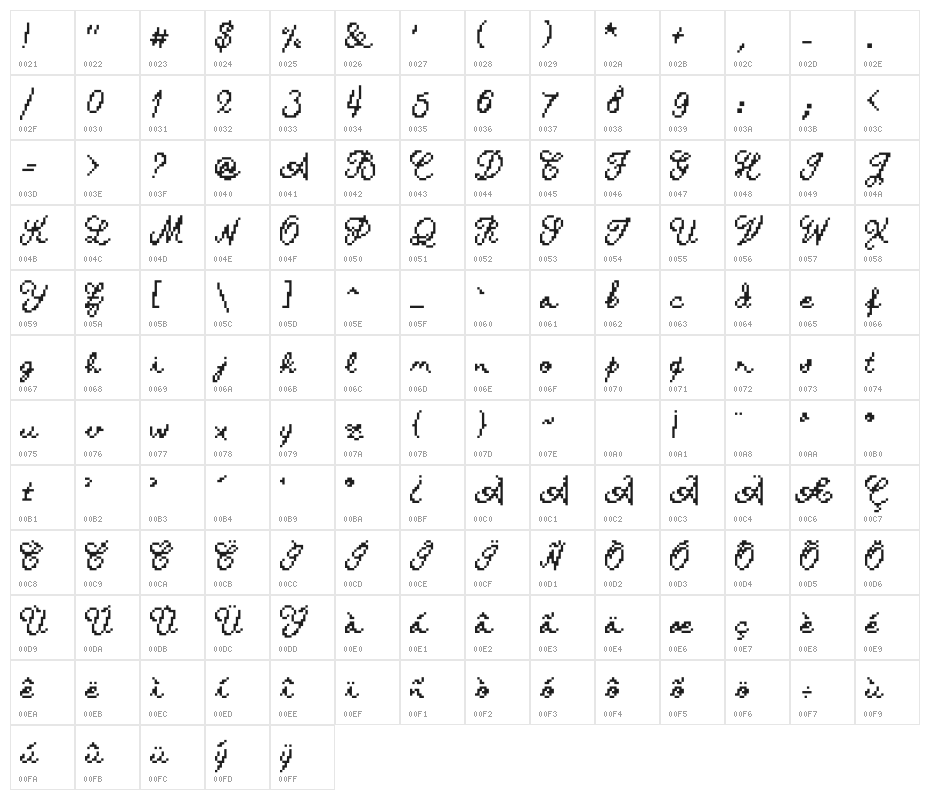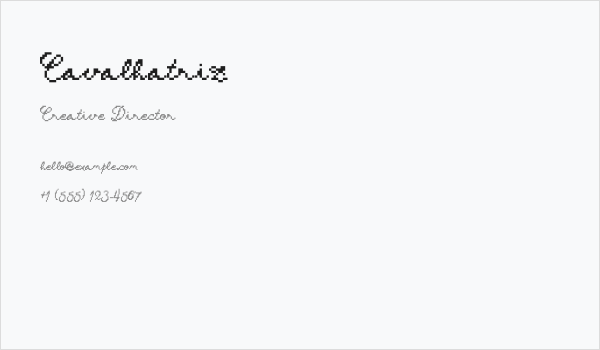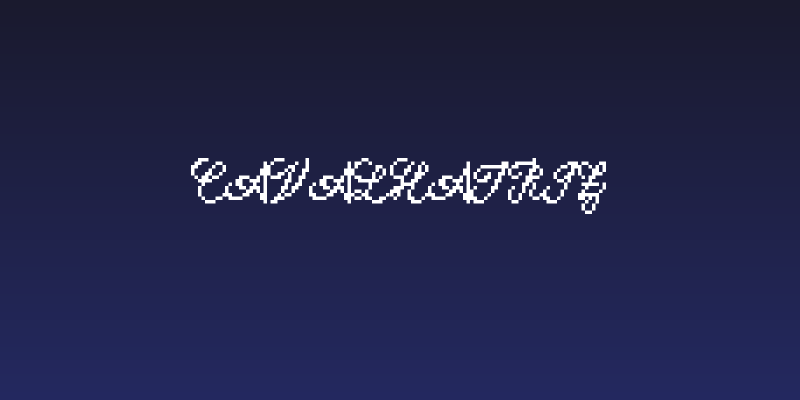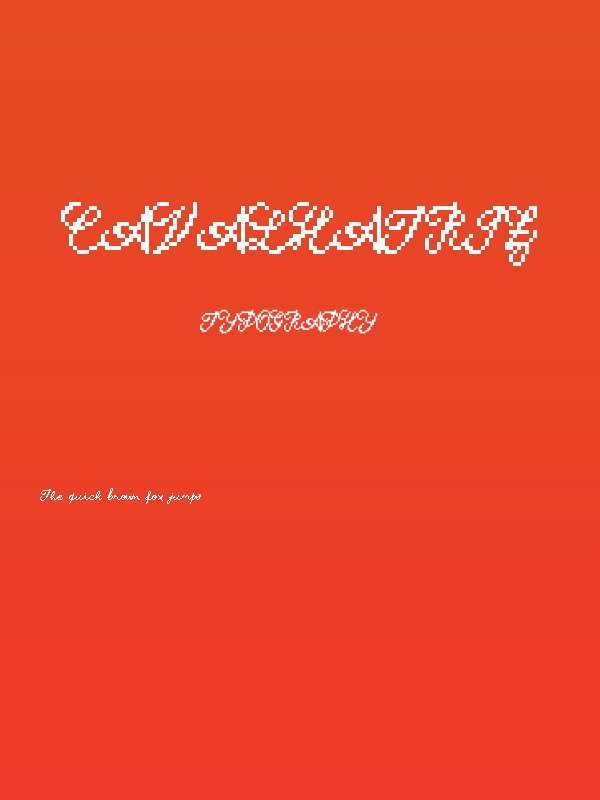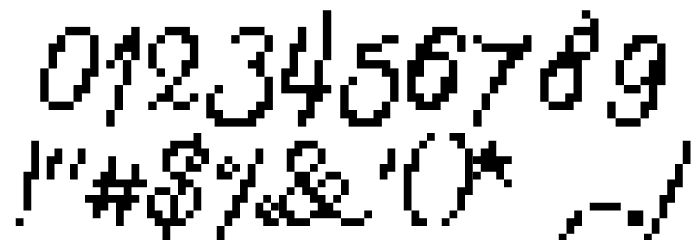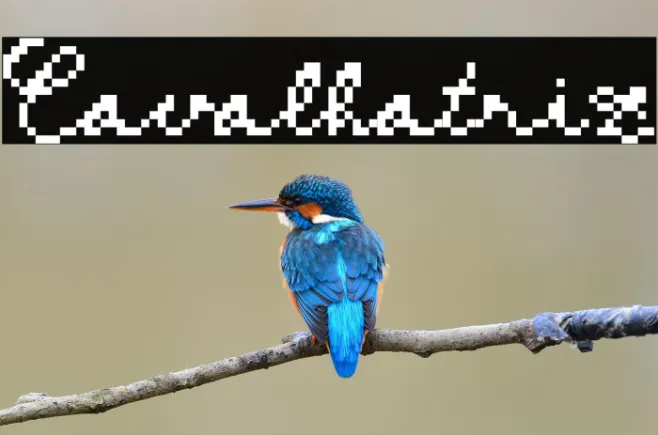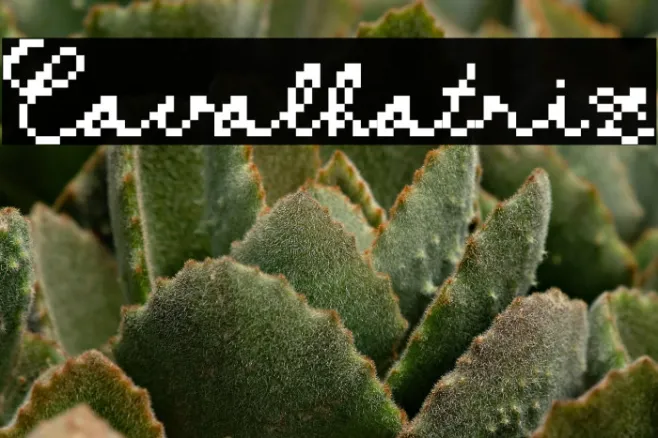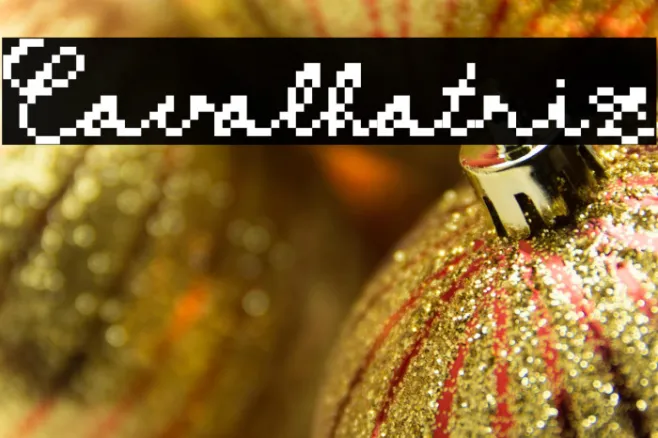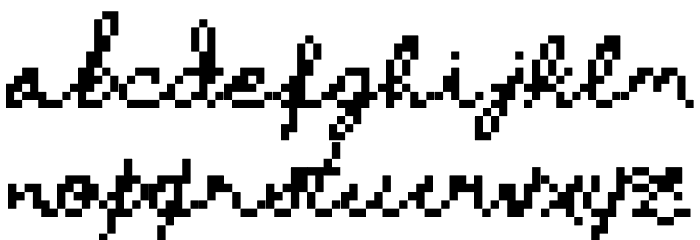
Cavalhatriz Font
Cavalhatriz Description
This font features a distinctive cursive style with a pixelated appearance, giving it a unique blend of digital and handwritten aesthetics. The uppercase letters are elegantly connected, while the lowercase letters maintain a consistent flow, enhancing readability. Numbers and special characters are crafted with the same pixelated cursive style, ensuring uniformity across all characters. The font's pixelated nature adds a retro, digital feel, making it stand out in modern design contexts. Its intricate design is suitable for projects that require a touch of nostalgia or a digital twist.
| Proposed Projects | Ideal for retro-themed designs, digital art projects, video game graphics, and creative branding. |